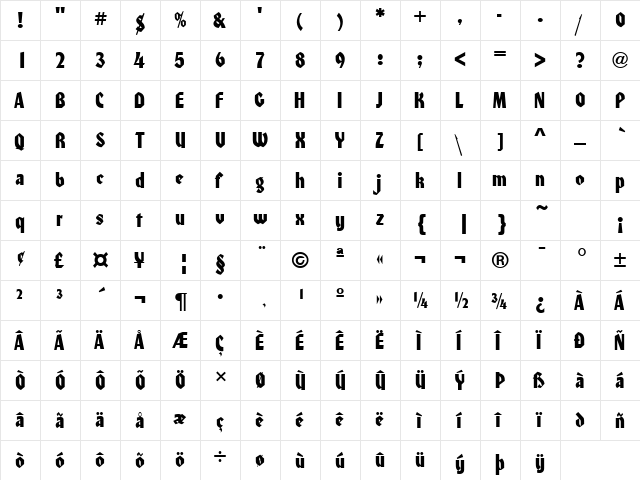
PT Klaus Normal
Design Context for PT Klaus Typeface
PT Klaus is a composed and adaptable typeface that performs quietly and consistently across a wide range of design contexts.